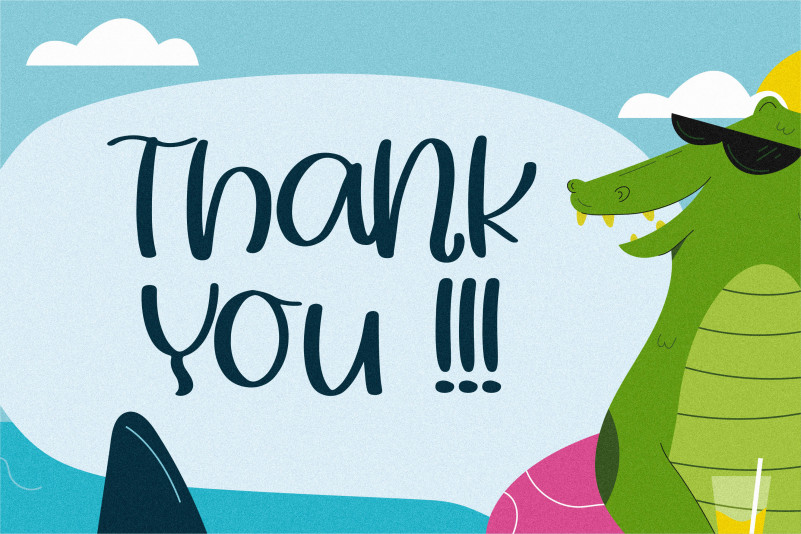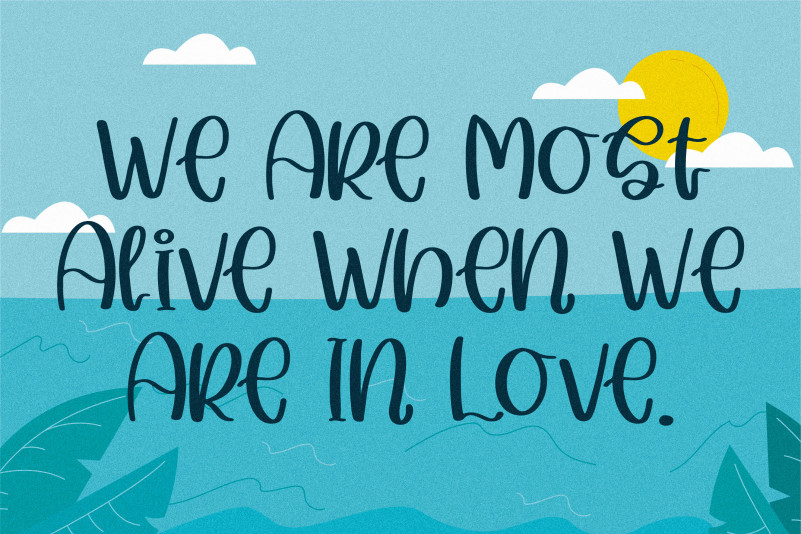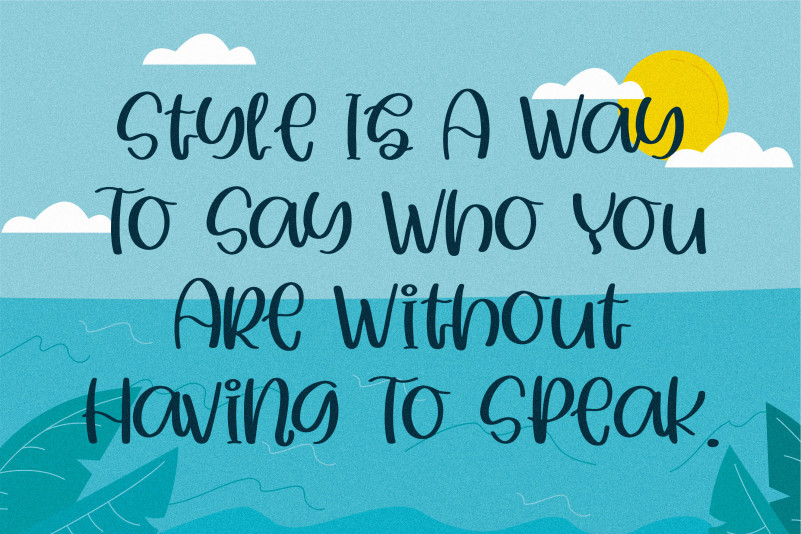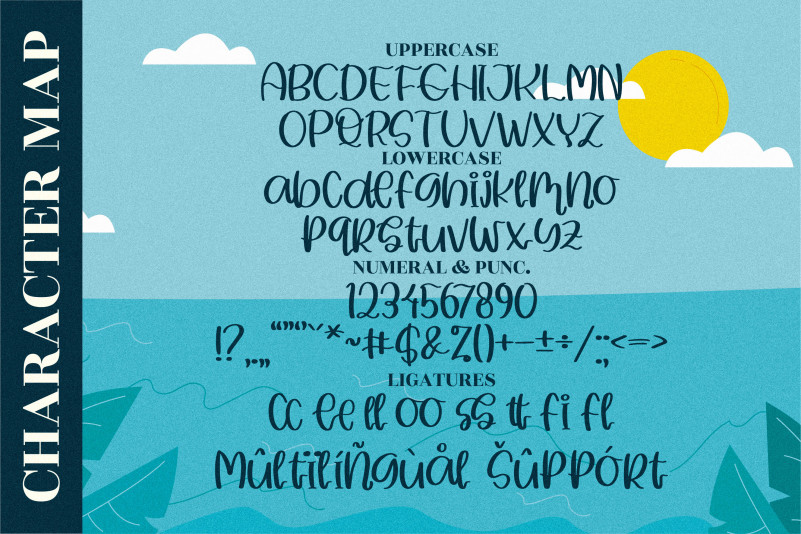
Summer Beach Font
Summer Beach Display Font
This is a friendly, quirky looking handwritten font. Whether you use it for cartoon related designs, children games or just any creation that requires a lovely touch, this font will be an amazing choice.